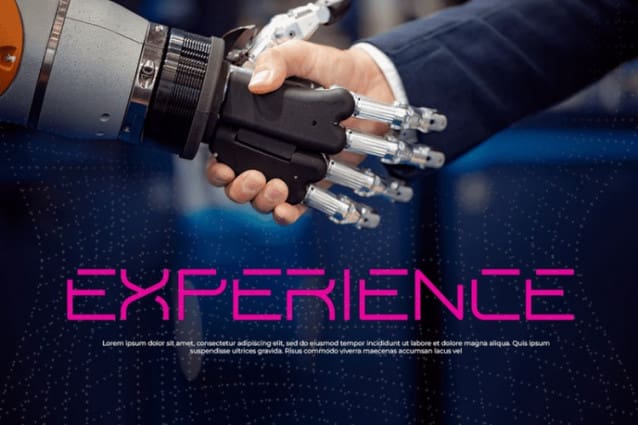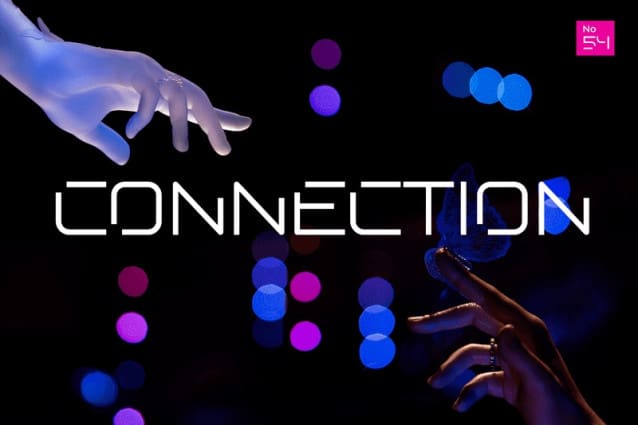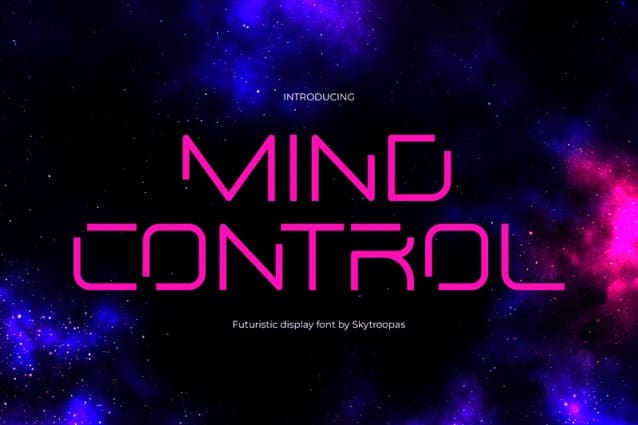
Mind Control Font
Mind Control Font is a sleek and modern font perfect for those looking to convey a futuristic and cutting-edge vibe. With its sharp lines and tech-inspired design, this font is perfect for various uses, including gaming, video game design, the film industry, and gadget-related projects. The virtual reality and space-inspired elements of Mind Control make it an excellent choice for projects with a futuristic or otherworldly theme.
Its unique techno style makes it stand out from other fonts, making it perfect for anyone who wants to make a statement. Whether you’re a web designer, a filmmaker, or a digital artist, Mind Control is sure to enhance your work and give it that extra edge.